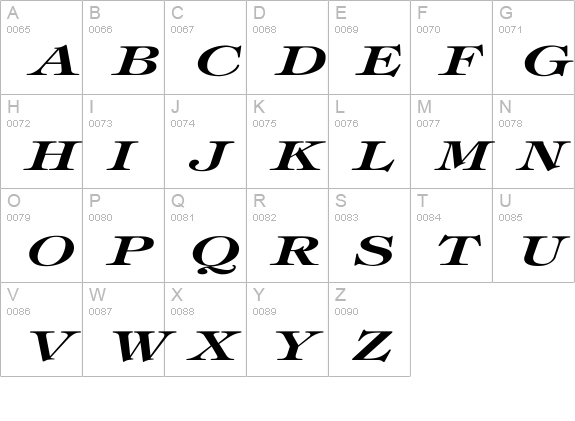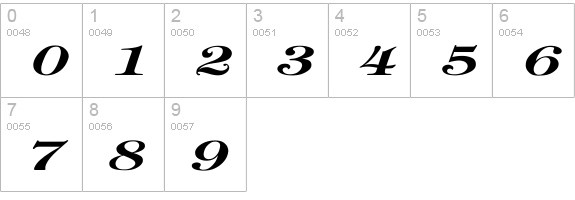
Tiffany-BoldItalic Ex Font Details
Tiffany-BoldItalic Ex is a stunning and elegant font that exudes sophistication and charm. Its bold and italicized design adds a touch of uniqueness and style to any project. With its beautifully curved letterforms and impeccable attention to detail, this font is perfect for creating eye-catching headlines, logos, and branding materials. What makes Tiffany-BoldItalic Ex even more appealing is the fact that it is freely available to download. Yes, you heard it right! This incredible font can be obtained at no cost from FontsMarket.com, a reputable website known for its vast collection of high-quality fonts. Whether you're a professional graphic designer or a creative enthusiast, Tiffany-BoldItalic Ex will surely become your go-to font. Its versatility allows it to be used in a wide range of design projects, from elegant wedding invitations to modern website layouts. The bold and italicized style adds a touch of drama and sophistication, making your creations stand out from the crowd. The attention to detail in each letterform is truly remarkable. From the delicate curves to the well-balanced spacing, Tiffany-BoldItalic Ex is a testament to exquisite craftsmanship. It is designed to be legible and visually pleasing, ensuring that your message gets across effortlessly. Featuring a wide range of characters, including uppercase and lowercase letters, numbers, and various punctuation marks, Tiffany-BoldItalic Ex offers endless possibilities for creative expression. Its versatility allows for seamless integration with different design software, ensuring a smooth and hassle-free experience. So why wait? Step up your design game and download Tiffany-BoldItalic Ex for free at FontsMarket.com today. Embrace the elegance and sophistication that this font brings to your projects, and let your creativity soar to new heights.